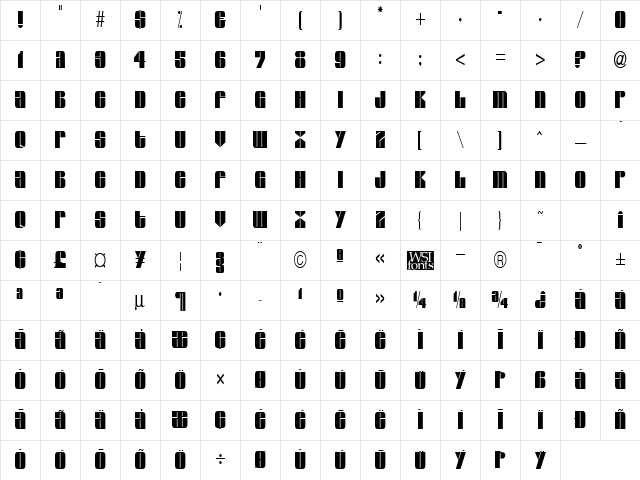
GroverThin Regular Free Font
GroverThin Regular
GroverThin Family
Design Context for GroverThin
GroverThin is a composed and adaptable typeface that performs quietly and consistently across a wide range of design contexts. Its slender proportions lend an understated elegance to any composition.
Pro Tip: Use GroverThin in both headline and body roles to test its range before committing to a single application.